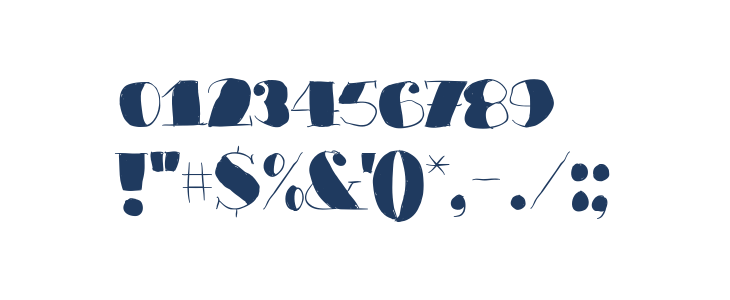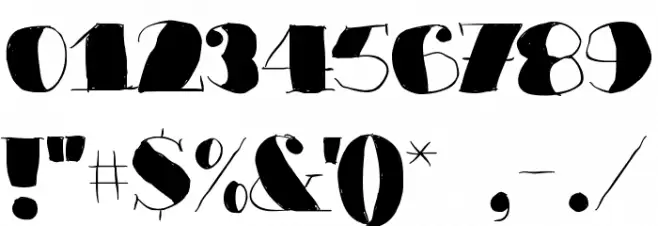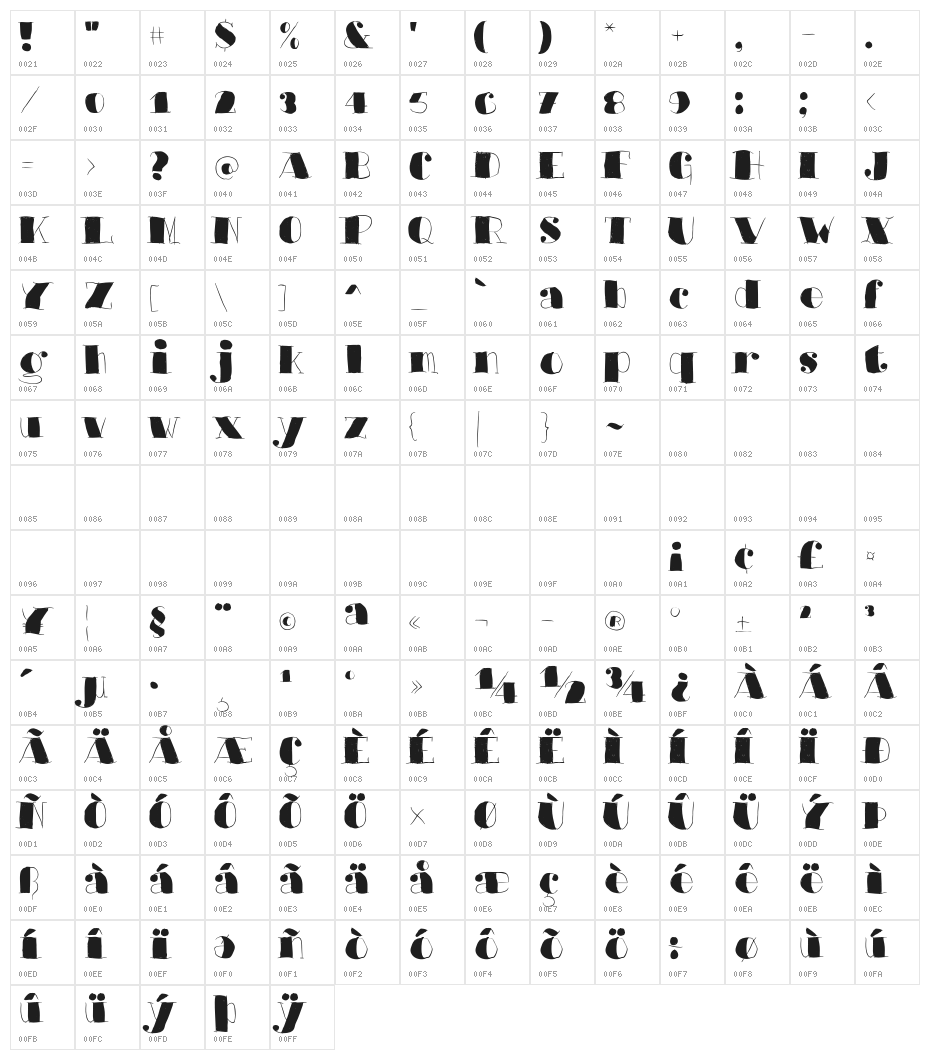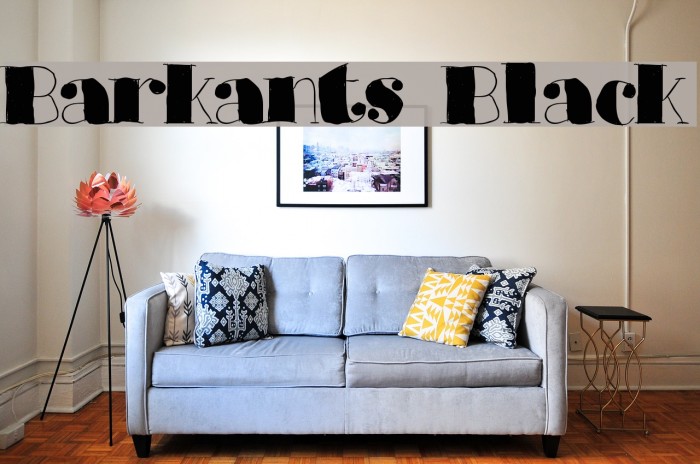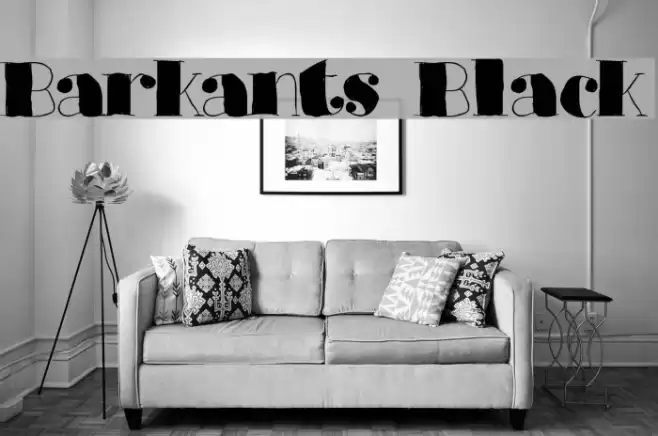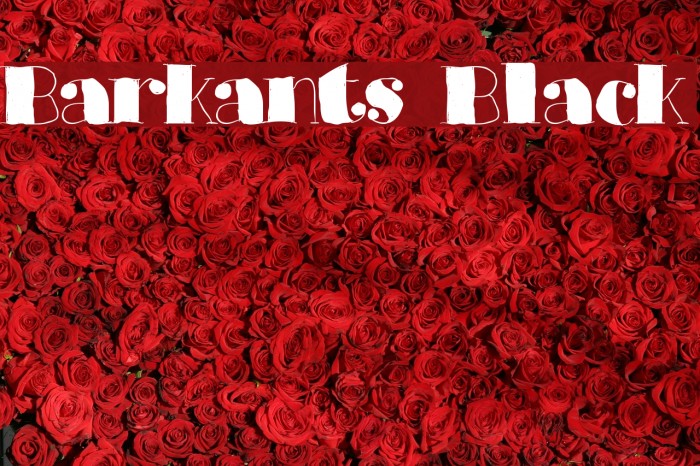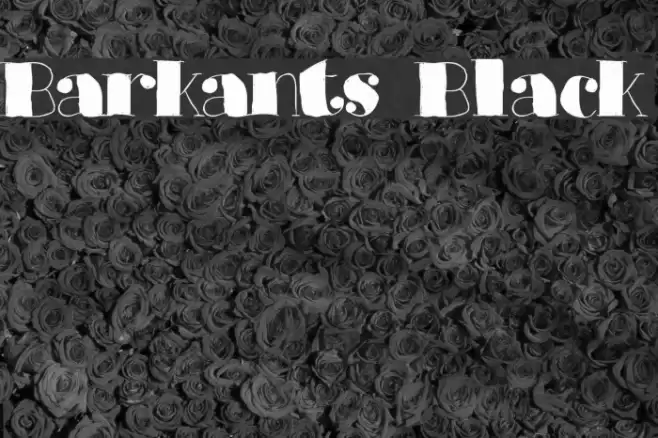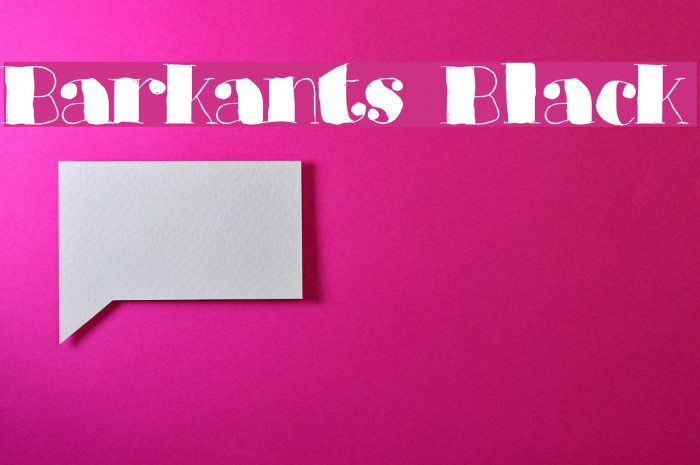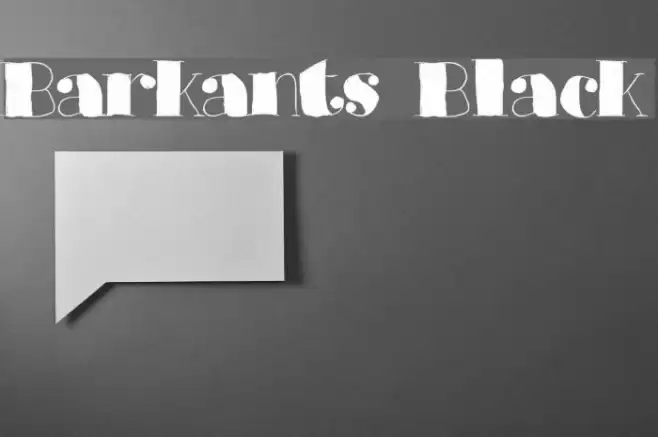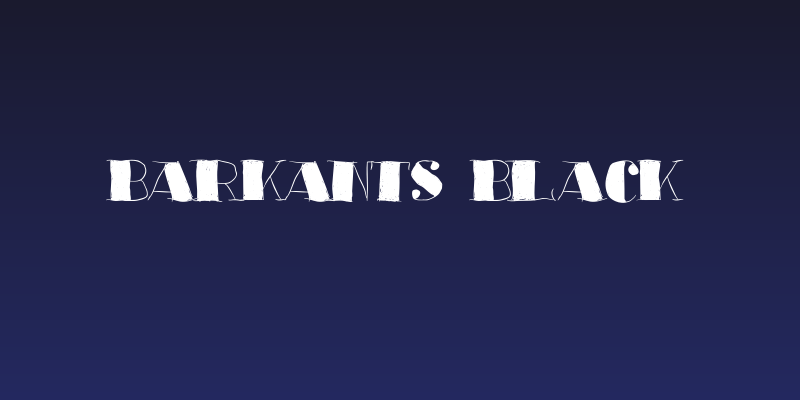
Barkants Black Font
Barkants Black Description
This font features a bold and artistic style with a distinct, hand-drawn appearance. The uppercase letters are characterized by thick, uneven strokes and playful curves, giving them a whimsical and dynamic look. The lowercase letters maintain this playful aesthetic, with some characters featuring unique flourishes and loops. The numbers are bold and consistent with the overall style, ensuring readability while maintaining the artistic flair. Special characters are creatively designed, adding to the font's decorative appeal. This font's unique style makes it suitable for creative projects that require a bold and artistic touch.
| Proposed Projects | Ideal for posters, artistic branding, creative invitations, and unique logo designs. |